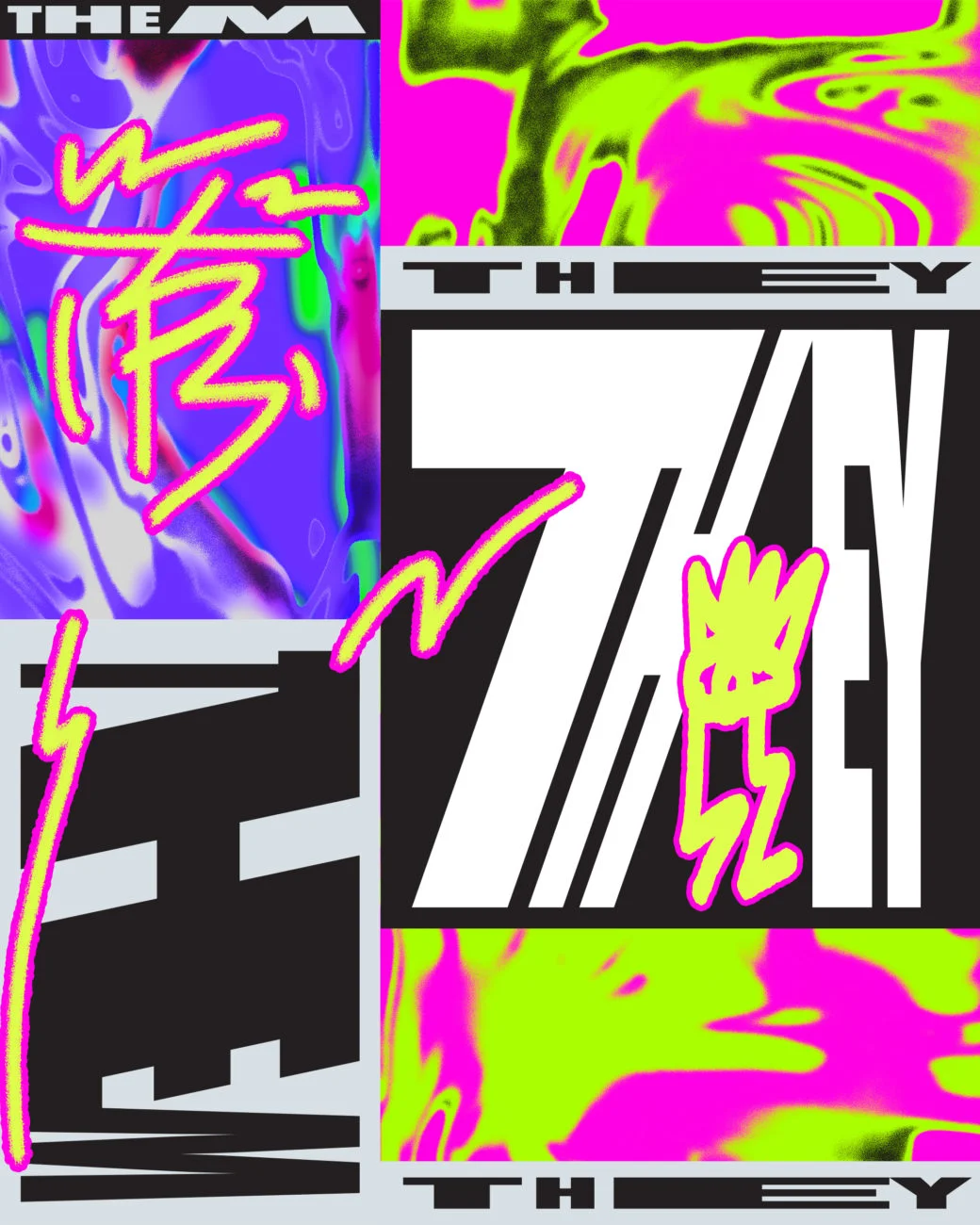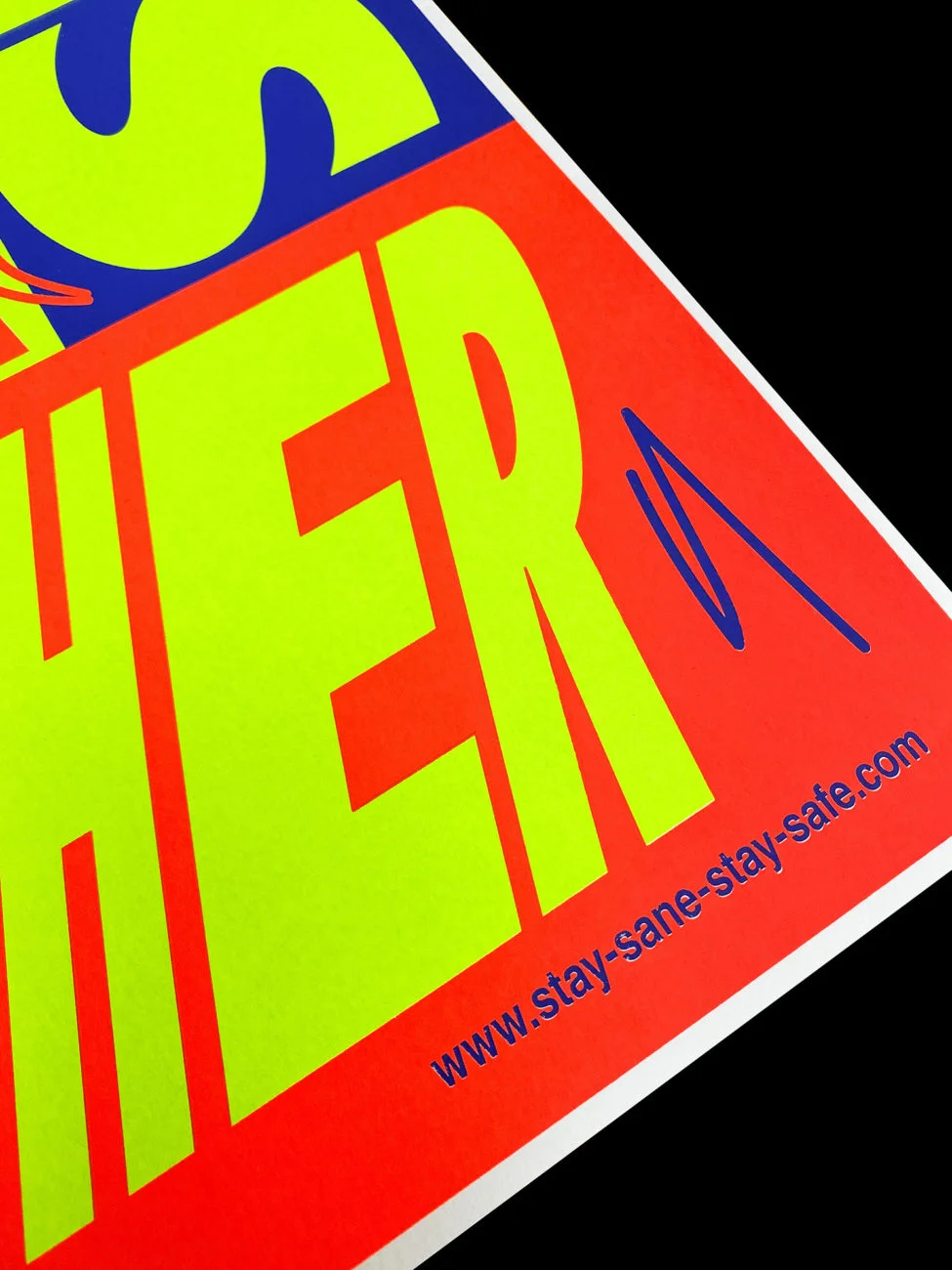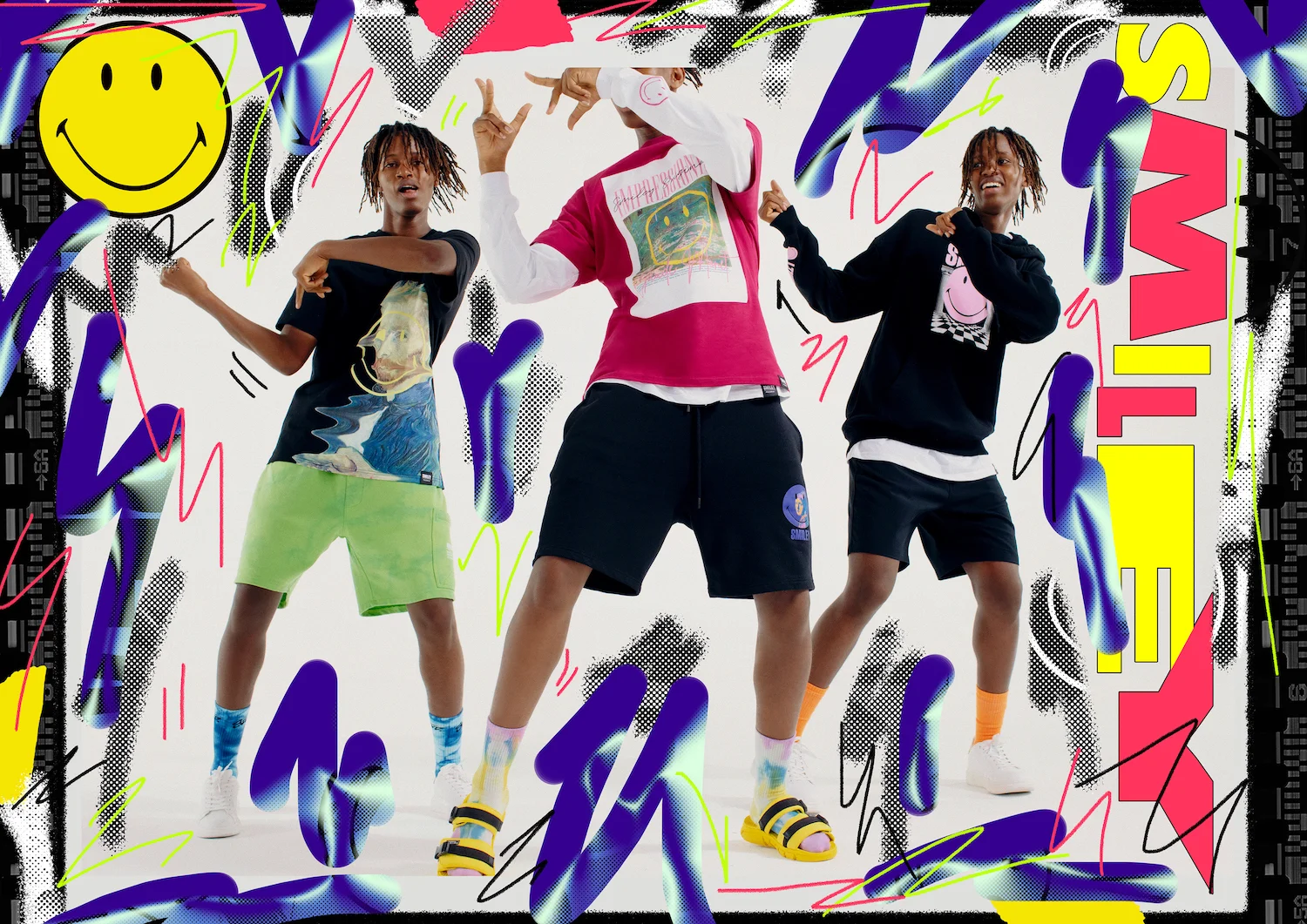
Known for his bright colour palettes, vibrant compositions and energetic type, Kris Andrew Small (@krisandrewsmall) is an artist who works in reference to the visuality and culture of his uniquely Australian costal upbringing. In doing so, Small ‘connects the dots of his unlikely trajectory into a psychedelic constellation of work: lucid textural pieces, photo-based collages and kinetic type-based compositions that vibrate off the page with their own brand of hyperactivity.’
After working as a designer and art-director for clients all over the world, Small has now re-centred his practice around being a full time artist. Continuing to work from his studio in Darlinghurst, Sydney, he exhibits in solo shows around the world and boasts client such as Nike, Reebok, It’s Nice That, Dazed, Sony Records & Henry Holland, to name a few.
Discussing Small’s unique aesthetic, he explains ‘the saturated colours of a tropical adolescence float in defiance of the grid, kaleidoscopic patterns embody an overactive mindset, and explosive typography continues a long-standing tradition of radical protest art from the fringes of club world. It all serves to connect an energetic aesthetic with coded — perhaps hallucinatory — notes on modern identity.’
Having cultivated such a rich, meaningful and unique visual language, we asked the artist for more details on his references and influences… ‘I think for me the biggest inspiration is artists like Keith Haring & Jean Paul Goude. I love that period of New York 80s, although there was so much horror going on with AIDs, that was a time of such creativity. The work that came from that scene still resonates today. I kind of infuse that with my upbringing in Australia, I just remember it being so colourful, tropical & natural. I think I land somewhere in between that 80s New York scene and a guy who lives in a rainforest. I think thats why I never really follow structure or grids, much like nature’, he tells us.
‘It’s funny as I started out as a designer, following guidelines and grids and things, and to be honest, it drove me nuts. Now I am lucky I have the freedom to make whatever work I like and make it as nuts as possible. I think I also have always used my work as a platform for my ideas on the world. We live in a beautiful world which is sadly full of so much in-equality. I am part of the LGBTQ community in which, some have a lot of equality and some are still incredibly vulnerable, discriminated against or in danger. So as a community we still need to fight for their rights. We aren’t equal until everyone in our community is equal.’
Kris also gave us some fascinating details on three selected projects. On the project, Kris Andrew Small X Pull & Bear, the artist elaborates, ‘I worked with my agent Grand Matter & Pull&Bear to create these collages for their new Smiley campaign. It was one of the first times I’d been commissioned by a brand to make a collage work. The deadline was tight & I really just let my self go a bit crazy with the work, which normally I am a bit more reserved when it comes to working with bigger brands. But they were super happy with it and really up for making the work crazy. I think that approach led to the work looking spontaneous and full of motion, a bit less worked on than some other projects.’
Discussing another stunning project, We Will Get Through This Together / Stay San Stay Safe, Kris tells us, ‘This poster was really important to me, I was not making much work I liked at that time and I was trying really hard. It was around the very start of the pandemic and I just wanted to make something to make myself feel better about everything that was going on. I made this on the sofa after having half a bottle of wine, and it ended it being one of my favourite pieces of work I’d ever made – Luckily the poster got a nice amount of attention. I ended up remaking the poster for Studio Lennarts & De Bruijn’s Stay Sane, Stay Safe initiative. The poster was screen printed and sent to hospitals around The Netherlands. It was also part of a pop up exhibition in Rotterdam & The Hague.’
Lastly, Kris tells us about his ongoing, experimental series, of Work In Progress Posters. ‘These are just a series of posters I make every few months,’ he explains, ‘it’s basically a collage of everything I am working on in that week. I find it really fun to mix all the projects together and try and find a theme. I think normally I go through phases with colour and that seems to change every couple of months. So it’s cool to look back at them and think, oh that month I was in those colours. It’s also nice way to use things that maybe didn’t end up being used and finding a space for them to sit in.